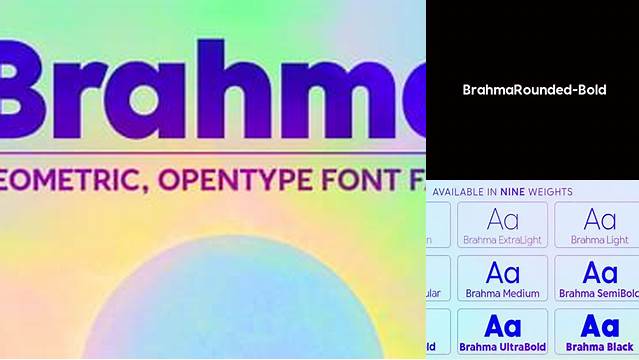
Hey guys, are you on the hunt for a stunning, versatile font that can elevate your design projects? Look no further! The Brahma Semi Bold font is here to save the day. In this comprehensive guide, we'll dive deep into everything you need to know about the Brahma Semi Bold font, from its key features and design applications to where you can snag it for free. So, buckle up and get ready to transform your creative visions into reality.
What Makes Brahma Semi Bold Font So Special?
Alright, let's get down to brass tacks. What exactly makes the Brahma Semi Bold font such a sought-after choice? Well, it's a combination of factors, really. First off, its semi-bold weight strikes a perfect balance. It's bold enough to grab attention, making it ideal for headlines, titles, and any text that needs to pop. But it's not so heavy that it overwhelms the reader or becomes difficult to read in large blocks of text. This versatility is a huge win, especially when you're working on diverse projects. The Brahma Semi Bold font offers great legibility in various sizes. Whether you're designing a website header, crafting a poster, or creating a document, the font's clarity remains intact, ensuring your message comes across loud and clear. This is crucial for any designer who wants their work to be both visually appealing and easy to understand. The font's modern and clean design is another significant plus. In today's design landscape, a clean aesthetic is key. The Brahma Semi Bold font fits right in with this trend. Its straightforward letterforms and contemporary feel make it a perfect fit for a wide range of design styles, from minimalist to more elaborate layouts. The font exudes a sense of sophistication and professionalism, which can boost the overall quality of your work. Moreover, the Brahma Semi Bold font is incredibly adaptable. It plays well with other fonts, which allows for creating dynamic typographic compositions. This adaptability is critical for designers who love experimenting with different combinations and styles to achieve unique looks. If you are looking for something that works well with a variety of graphic design materials, Brahma Semi Bold font is the answer. Finally, this font is designed for maximum impact. It's not just about the look; it's about communicating your message effectively. With the Brahma Semi Bold font, you can be confident that your words will not only look great but also make an impact. The font has that certain something that draws the eye and keeps your audience engaged. So, there you have it, a font that not only looks good but performs well. You cannot ask for more!
Core Features and Benefits
- Exceptional Readability: Ensures your text is clear and easy to understand in different sizes.
- Versatile Design: Suitable for a wide range of projects, from digital to print.
- Modern Aesthetic: Brings a contemporary feel to your designs.
- Compatibility: Works seamlessly with other fonts and design elements.
- Professional Appearance: Elevates the overall look and feel of your work.
Designing with Brahma Semi Bold Font: Best Practices
Now that you have the Brahma Semi Bold font at your fingertips, let's talk about how to make the most of it. The font is perfect for a wide variety of design applications. Think about using it for headlines, titles, and subheadings. The boldness of the font makes these elements stand out, immediately capturing the reader's attention. Websites, blogs, and online articles can benefit greatly from the font's clarity and visual appeal, making it a great choice for digital projects. When designing, consider the overall aesthetic you are aiming for. Brahma Semi Bold can fit into a variety of styles. It works well with minimalist layouts, adding a touch of sophistication without overwhelming the design. For more dynamic designs, pair it with other fonts. Contrast the boldness of Brahma Semi Bold with a lighter or more delicate font for body text. This contrast will help create visual interest and hierarchy. You can experiment with different font combinations to find the best fit for your project. Also, pay close attention to the font size and spacing. The readability of the font is a key feature. Adjust the font size to ensure it's legible across all platforms, whether it's a website, a printed poster, or a mobile application. Ensure there's sufficient space between the letters and lines to avoid a cluttered look. This font's readability is one of the key things that make it so desirable.
Effective Design Applications
- Headlines and Titles: Make your main text pop and grab attention.
- Website Headers: Enhance the visual appeal of your website.
- Posters and Flyers: Create impactful and easily readable content.
- Logos and Branding: Add a professional touch to your brand identity.
- Digital Documents: Improve the readability of your digital content.
Conclusion: Embrace the Power of Brahma Semi Bold
Alright, we've covered everything from the awesome features of the Brahma Semi Bold font to where you can snag it for free and how to use it effectively. This font is an excellent choice for anyone looking to create visually appealing and readable designs. Whether you're a seasoned designer or just starting out, the Brahma Semi Bold font is a versatile tool that can significantly improve your work. So go ahead, download the font, experiment with its features, and let your creativity run wild. We hope this guide has given you all the information and motivation you need to create something amazing with this font. Happy designing!